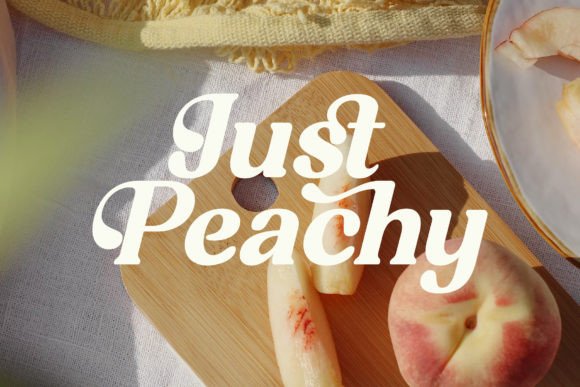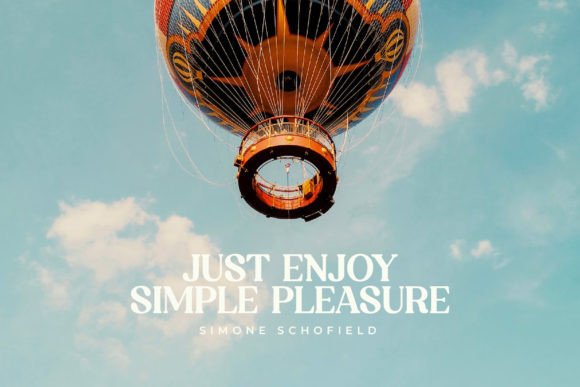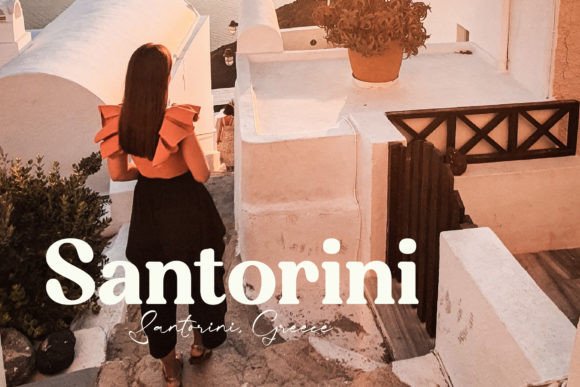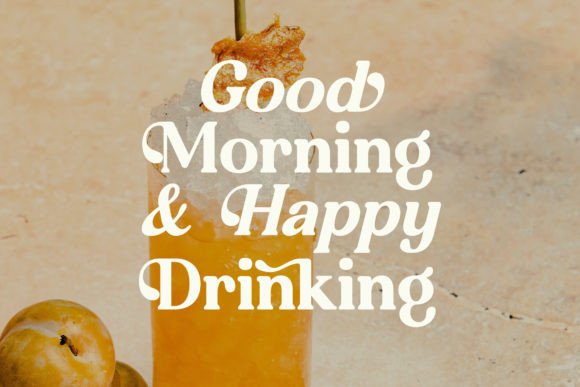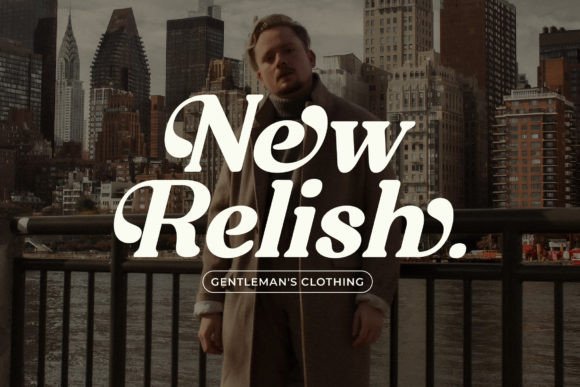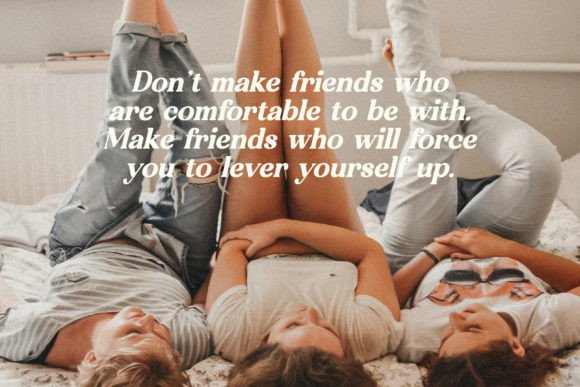
Introduction to Qureah Font
Have you ever stared at a blank canvas, searching for the perfect font to bring your creative project to life? The blank page can be intimidating, but what if you had the perfect design resource at your fingertips? For designers, finding the right font can make all the difference between a mediocre and a breathtaking design. That’s where the Qureah Font comes in – a stylish and elegant serif font that’s sure to elevate your next project.
With its classy and fashionable character, the Qureah Font is perfect for a wide range of chic designs, from elegant invitations to high-quality branding materials. And with its transparent background, you can easily layer it over your design elements, creating a seamless and sophisticated look. Whether you’re working on a free download or a paid project, the Qureah Font is a valuable addition to any designer’s toolkit.
Key Features of Qureah Font
- Unique, elegant design with a transparent background, ideal for creative projects
- High-quality font with crisp, clear typography, suitable for various design applications
- Includes a comprehensive character set, covering Latin, Cyrillic, and Greek alphabets, making it a versatile design tool
Honest Review: Qureah Font
I recently stumbled upon the Qureah Font while searching for a unique design resource for a creative project. As a designer, I’m always on the lookout for high-quality fonts that can elevate my work.
What works well: ✨ The Qureah Font has a sleek and modern design that works perfectly for digital projects. The transparent background makes it easy to use on various backgrounds and designs. The font also comes in a range of weights and styles, making it versatile for different creative projects.
What could be improved: ⚠️ While the Qureah Font is free to download, it’s not available in as many languages as I’d like. This could be a limitation for designers who work with international clients or need to support multiple languages in their designs.
Overall, I’m impressed with the Qureah Font and would recommend it to designers looking for a high-quality, modern font for their creative projects. The free download is a bonus, and the transparent background makes it easy to use on various designs.
- High-quality, modern design
- Range of weights and styles
- Limited language support
The Qureah Font is a high-quality design resource ideal for creative projects requiring a unique and modern touch. With its transparent background and sleek design, this font is perfect for designers and artists looking to add a touch of sophistication to their work.
The Qureah Font is ideal for a variety of creative projects, including:
- Typography-based art